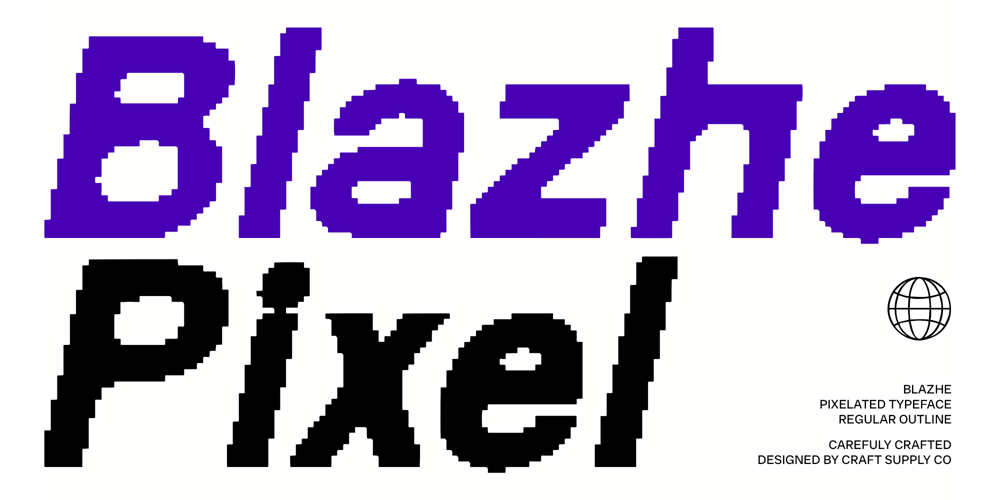
Blazhe Pixel Font Family was designed by Trio Nazzar Saputra, Wahyu Hadi Yuana and published by Craft Supply Co. Blazhe Pixel contains 2 styles and family package options. Blazhe Pixel Font: Modern Simplicity with Digital FlairContemporary Sans-Serif DesignBlazhe Pixel is a modern sans-serif font featuring a sleek, contemporary design enhanced by a pixel effect. Its clean lines and geometric shapes are elevated by pixelated details, creating a cutting-edge, tech-inspired appearance.Pixelated Details for a Tech-Inspired LookExperience the fusion of sleek simplicity and digital aesthetics with Blazhe Pixel. The pixel effect adds a distinctive, modern touch, making the font ideal for designs that require a tech-savvy edge and a touch of digital flair.Perfect for Digital and Futuristic DesignsBlazhe Pixel is well-suited for modern designs, digital interfaces, and futuristic branding. Its clarity and unique pixelated style ensure it stands out in a variety of contexts, providing both functionality and a distinctive modern aesthetic.Enhance Your DesignAdd a touch of contemporary sophistication and digital charm to your projects with Blazhe Pixel. Its combination of clean geometric shapes and pixelated effects offers a perfect balance of clarity and modern visual appeal, making it a standout choice for any cutting-edge design.